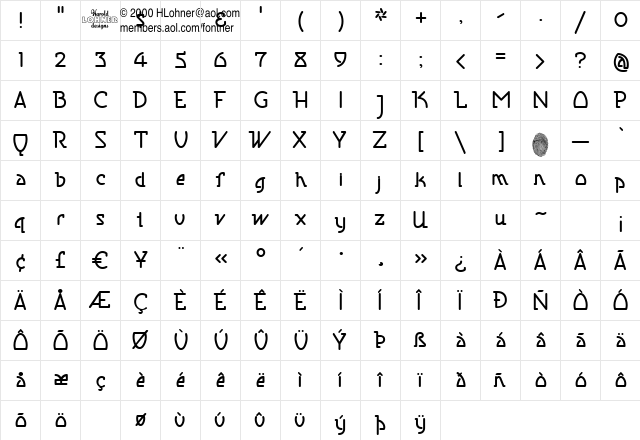
Sanitary Regular Regular
| Copyright | Sanitary Regular computer font 00 Harold Lohner "  "http://members.aol.com/fontner Based on an old product label for "Pepsodent Antiseptic." |
Design Context for Sanitary Regular Typeface
Sanitary Regular takes a measured approach to typography — its balanced proportions and neutral character make it a reliable workhorse for both digital and print work.